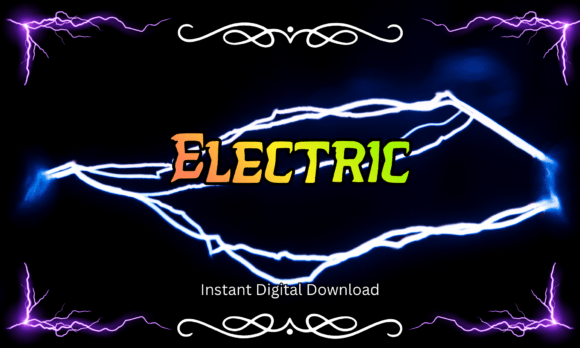
Unleash the Power of Electric Font: Elevate Your Designs with a Shocking Twist
Are you tired of using the same old fonts that fail to capture the attention of your audience? Look no further than the Electric Font, a high-energy display font that’s sure to electrify your designs. With its bold, electrified aesthetic, Electric is perfect for designers who want to add a modern and eye-catching touch to their projects.
What Makes Electric Font So Special?
Electric Font is not just another font – it’s an experience. Its dynamic shapes and vibrant gradient style bring a futuristic and gaming-inspired edge to any project. Whether you’re designing a logo, creating social media graphics, or crafting digital artwork, Electric Font is the perfect choice for creators who want their designs to feel alive and powerful.
Perfect Use Cases for Electric Font
Electric Font is versatile and can be used in a variety of design projects, including:
- Logos & Branding: Create a bold and memorable brand identity with Electric Font.
- Gaming Designs: Add a gaming-inspired edge to your designs with Electric Font’s futuristic style.
- Stream Overlays: Elevate your stream overlays with Electric Font’s high-energy aesthetic.
- Stickers & Merch: Create eye-catching stickers and merchandise with Electric Font.
- Posters & Signs: Make a statement with Electric Font’s bold and vibrant style.
- Digital Artwork: Add a touch of modernity to your digital artwork with Electric Font.
- Social Media Graphics: Create engaging social media graphics that stand out from the crowd.
- Uppercase Letters: Electric Font features uppercase letters for a bold and eye-catching look.
- Numbers & Symbols: Electric Font includes numbers and symbols to complete your designs.
Font Style
Electric Font is a neon/electric font with a gaming-inspired twist. Its bold display style features:
- Neon/Electric: A vibrant and eye-catching style that’s perfect for modern designs.
- Gaming Inspired: Electric Font’s futuristic style is inspired by the world of gaming.
- Bold Display: Electric Font is designed to make a statement with its bold and dynamic shapes.
- Futuristic: Electric Font’s futuristic style is perfect for designers who want to add a touch of modernity to their designs.
- Vibrant Gradient Ready: Electric Font features a vibrant gradient style that’s ready to use.
Why You’ll Love Electric Font
Electric Font is designed to stand out with:
- High Contrast Shapes: Electric Font features high contrast shapes for a bold and eye-catching look.
- Strong Readability: Electric Font is designed for strong readability, even at small sizes.
- Energetic Visual Impact: Electric Font is perfect for designers who want to create designs that feel alive and powerful.